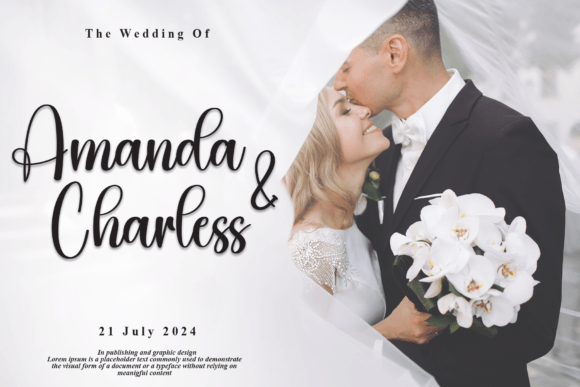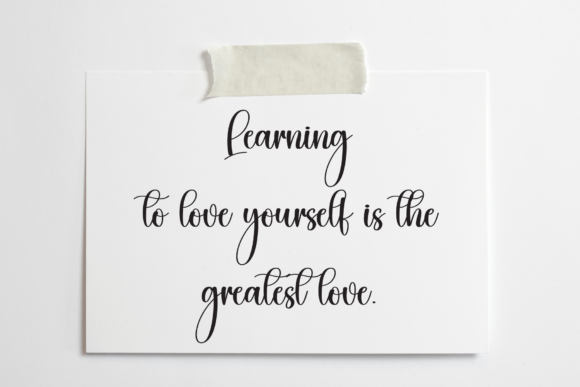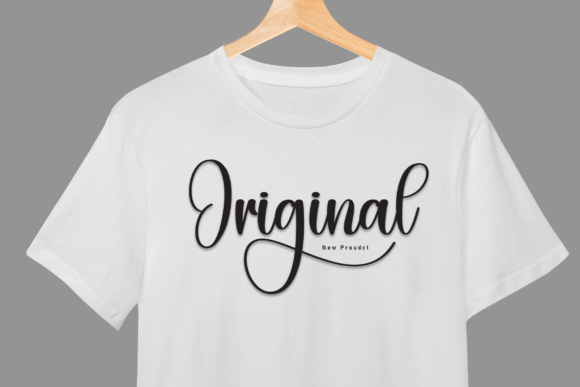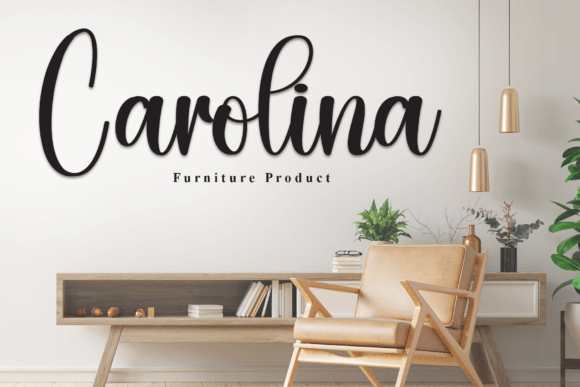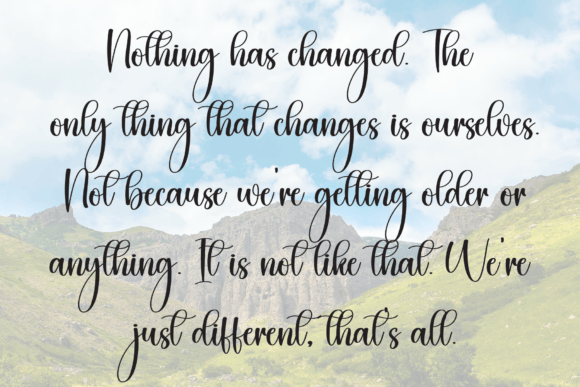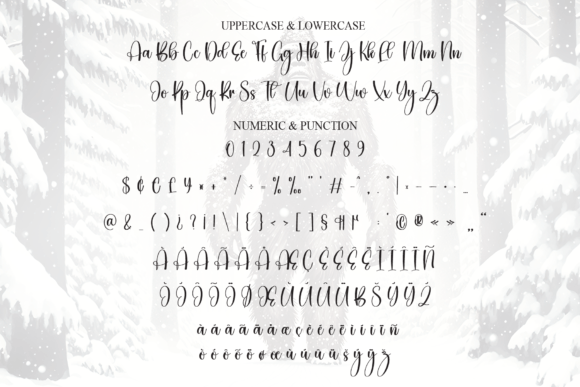
Introducing Bigfoot Font: The Playful, Handwritten Style that’s Taking Over
Are you tired of using the same old fonts in your design projects? Look no further than Bigfoot Font, a playful, handwritten font that’s sure to add a personal touch to any creation. With its uneven letters and quirky style, Bigfoot Font is the perfect choice for designers and crafters looking to add a down-to-earth feel to their work.
The Characteristics of Bigfoot Font
So, what makes Bigfoot Font so unique? For starters, its handwritten style gives it a friendly, approachable feel that’s hard to find with more traditional fonts. The uneven letters and quirky style of Bigfoot Font also give it a personal touch that’s sure to make your designs stand out. Whether you’re working on a logo, a poster, or a craft project, Bigfoot Font is the perfect choice for adding a bit of whimsy and personality.
The Benefits of Using Bigfoot Font
So, why should you choose Bigfoot Font for your next design project? For one, its playful style is sure to grab attention and make your work more engaging. Additionally, the font’s casual, friendly feel makes it perfect for projects that require a more approachable tone. Whether you’re working with a client who wants to appeal to a younger audience or you’re looking to add a bit of humor to your design, Bigfoot Font is the perfect choice.
Bigfoot Font in Action
So, how can you use Bigfoot Font in your design projects? The possibilities are endless! Here are a few ideas to get you started:
- Use Bigfoot Font in a logo design to add a personal touch and make your brand stand out.
- Create a playful poster or flyer with Bigfoot Font to grab attention and add a bit of whimsy.
- Use Bigfoot Font in a craft project, such as a handmade card or gift tag, to add a personal touch.
- Incorporate Bigfoot Font into your website design to add a friendly, approachable feel.
Tips for Using Bigfoot Font
While Bigfoot Font is a versatile font that can be used in a variety of design projects, there are a few things to keep in mind to get the most out of it. Here are a few tips:
- Use Bigfoot Font in large sizes to make the most of its playful, handwritten style.
- Pair Bigfoot Font with other fonts to create a unique and eye-catching combination.
- Don’t be afraid to get creative and try new things – Bigfoot Font is all about experimentation and self-expression!
In conclusion, Bigfoot Font is a playful, handwritten font that’s perfect for designers and crafters looking to add a personal touch to their work. With its uneven letters and quirky style, Bigfoot Font is sure to make your designs stand out and grab attention. Whether you’re working on a logo, poster, or craft project, Bigfoot Font is the perfect choice for adding a bit of whimsy and personality. So why not give it a try and see what amazing creations you can come up with?
Bigfoot Font Specifications
- Font Type: Handwritten
- Font Style: Playful, Quirky
- Use Cases: Logos, Posters, Craft Projects, Website Design
- Recommended Size: Large sizes for maximum impact
- Pairing Suggestions: Experiment with different fonts and combinations